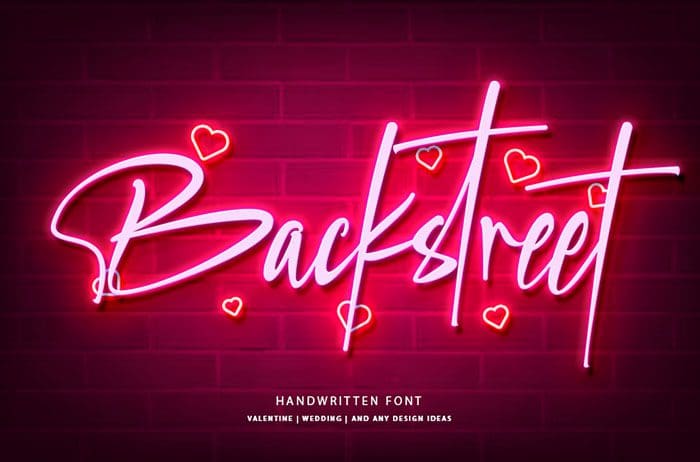
Backstreet Handwritten Font
Backstreet handwritten font typeface with its own unique characteristics. It has an elegant, feminine style with good readability. Perfect for valentine days, neon design, signatures, invitations, titles, and much more! Created this font by Thomas Aradea. You can also search more free Handwritten Fonts. I hope you enjoy this font.